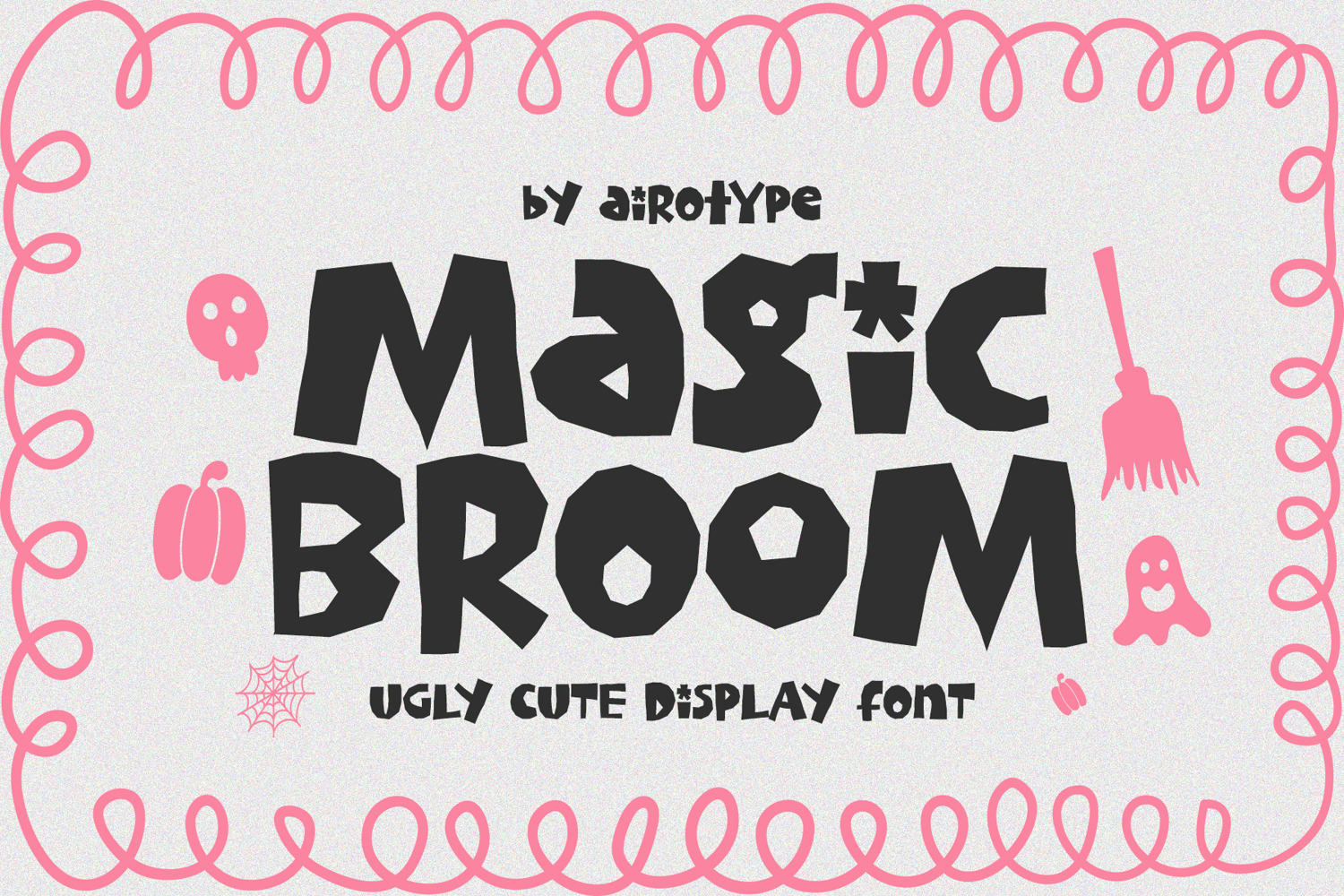
Magic Broom is bouncy display font with imperfect and fun style. This font has charm and magical feeling that will radiate joyful and whimsical vibes.
Magic Broom is perfect font for design that needs festive and cute vibes, such as Halloween, t-shirt, crafting, stickers, logo, and many more.